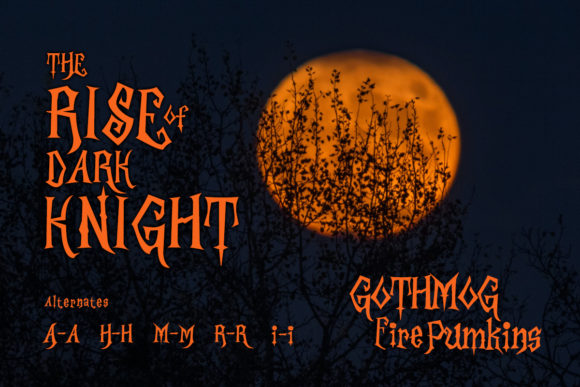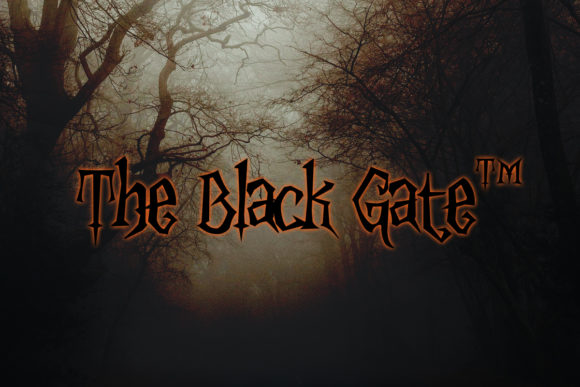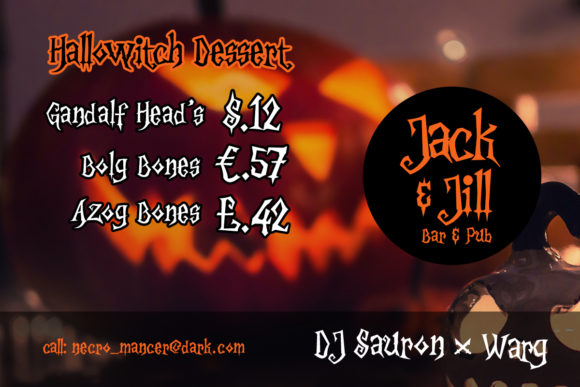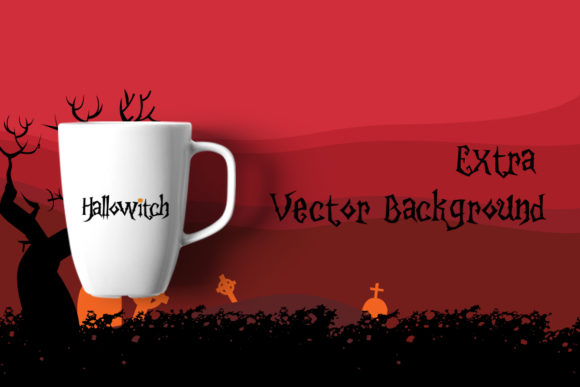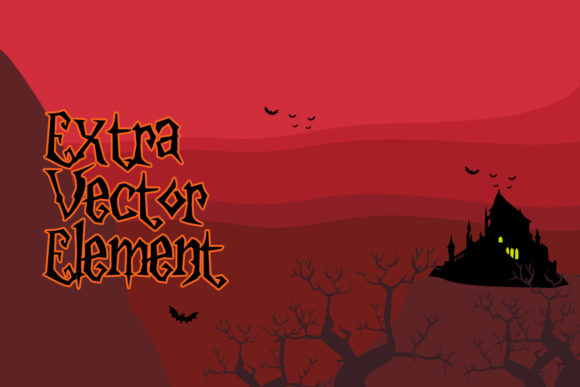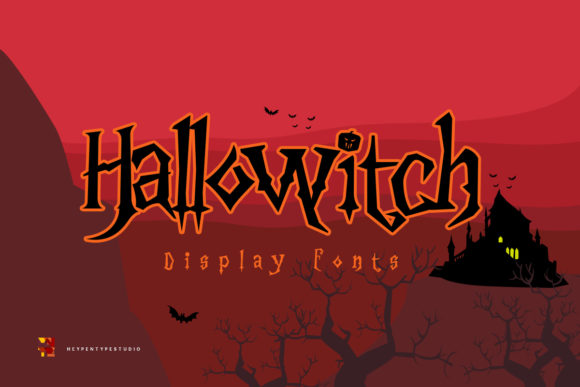
Hallowitch Font: The Spookiest Addition to Your Halloween Designs
As the spookiest time of the year approaches, designers and crafters are on the lookout for the perfect font to add a touch of eeriness to their Halloween-themed creations. Look no further than the Hallowitch font, an incredibly interesting and spooky display font that’s sure to make your designs come alive!
The Origins of Hallowitch Font
The Hallowitch font is a unique and captivating typeface that’s been crafted to evoke the spirit of Halloween. Its origins are shrouded in mystery, but one thing is certain – this font is the perfect addition to any design that requires a touch of spookiness. Whether you’re creating invitations, decorations, or social media graphics, Hallowitch is sure to cast a spell on your audience.
What Makes Hallowitch Font So Special?
So, what sets Hallowitch apart from other fonts? Here are just a few features that make it a standout:
- Unique Character Set: Hallowitch boasts a distinctive character set that’s full of personality. From the elegant swashes to the creepy crooked lines, every letter is designed to add a touch of whimsy and spookiness to your designs.
- Highly Versatile: Whether you’re creating digital or print designs, Hallowitch is the perfect choice. Its clear and legible design makes it suitable for a wide range of applications, from business cards to billboards.
- Easily Customizable: With Hallowitch, you can easily customize your text to fit your design style. Add swashes, change letter spacing, or experiment with different colors – the possibilities are endless!
Creative Ways to Use Hallowitch Font
Now that you’ve got your hands on the Hallowitch font, it’s time to get creative! Here are some spook-tacular ideas to get you started:
- Halloween Invitations: Create eye-catching invitations that set the tone for a spooktacular party. Use Hallowitch to add a touch of eeriness to your designs and make them stand out.
- Social Media Graphics: Add a touch of Halloween magic to your social media graphics with Hallowitch. Create spooky posters, ads, or even animated GIFs that are sure to grab attention.
- DIY Decorations: Take your DIY decorations to the next level with Hallowitch. Create spooky signs, banners, or even tombstones that will make your Halloween party a howling success.
- Packaging Design: Add a touch of Halloween whimsy to your product packaging with Hallowitch. Create eye-catching labels, stickers, or even custom packaging that will make your products stand out.
Tips for Working with Hallowitch Font
To get the most out of Hallowitch, here are some expert tips to keep in mind:
- Experiment with Colors: Don’t be afraid to experiment with different colors and textures to add depth and interest to your designs. Hallowitch looks amazing in bold, bright colors, but it also works well in more muted tones.
- Play with Letter Spacing: One of the best things about Hallowitch is its flexibility. Experiment with different letter spacings to create a unique look that suits your design style.
- Combine with Other Fonts: Hallowitch is a statement font, but it can also be paired with other fonts to create a unique look. Try combining it with a clean sans-serif font for a striking contrast.
In conclusion, the Hallowitch font is an incredibly interesting and spooky display font that’s perfect for adding a touch of eeriness to your Halloween designs. With its unique character set, versatility, and customizability, it’s the perfect choice for designers and crafters looking to create eye-catching and spooky designs. So why wait? Download Hallowitch today and make your Halloween designs come alive!